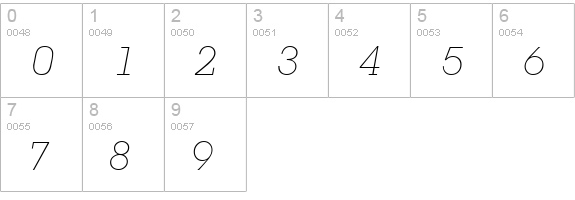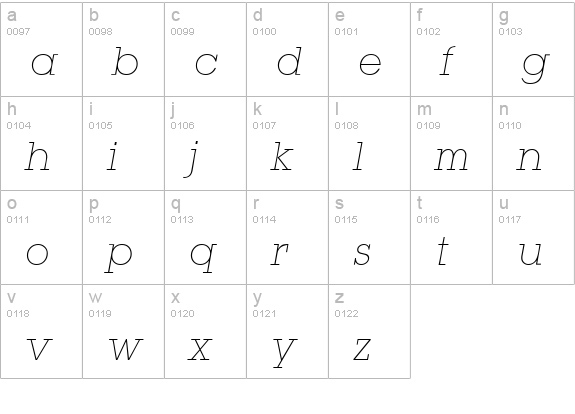
L850-Slab-Light-Italic is a refined, elegant, italic variant in the L850 typeface family \xE2\x80\x94 well suited to elegant body text, refined sub-headings, and luxury branding.
The L850 Slab Light Italic font is a modern and sophisticated typeface that exudes elegance and style. Its sleek and streamlined design makes it perfect for a wide range of design projects, from branding to editorial layouts. The italic style adds a touch of flair and sophistication to any text, making it stand out and catch the eye. What makes this font even more appealing is that it is available for free download at FontsMarket.com. That's right, you can get your hands on this beautiful typeface without having to spend a dime. Whether you're a professional designer or a hobbyist looking to elevate your projects, the L850 Slab Light Italic font is a fantastic addition to your font library. Don't miss out on this incredible opportunity to enhance your designs with this stunning typeface. Download it now and start creating beautiful and impactful designs today!